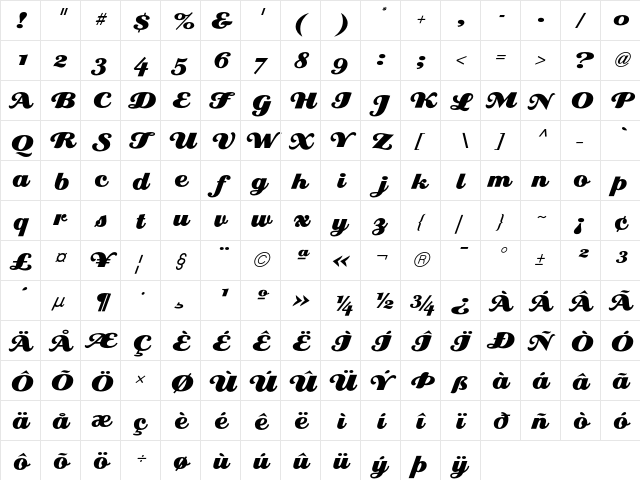
EclatICG Alt
Design Context for EclatICG Typeface
EclatICG is a composed and adaptable typeface that performs quietly and consistently across a wide range of design contexts.